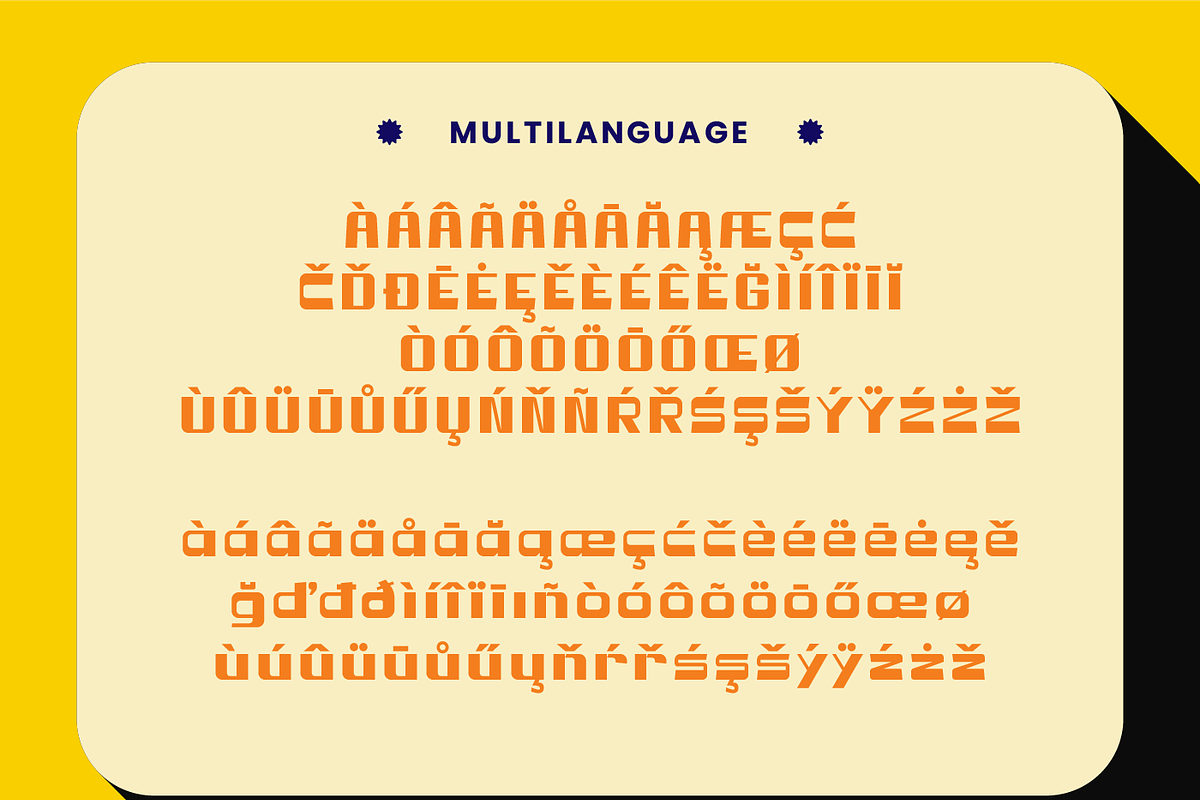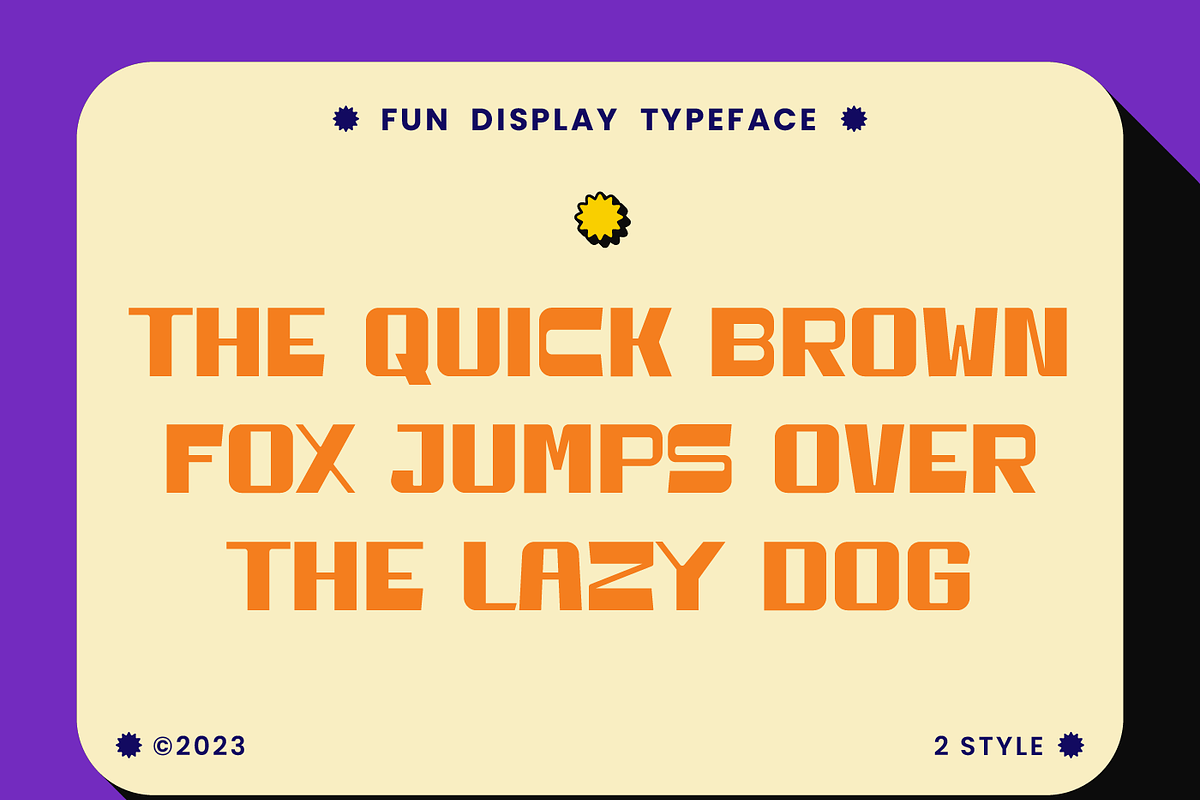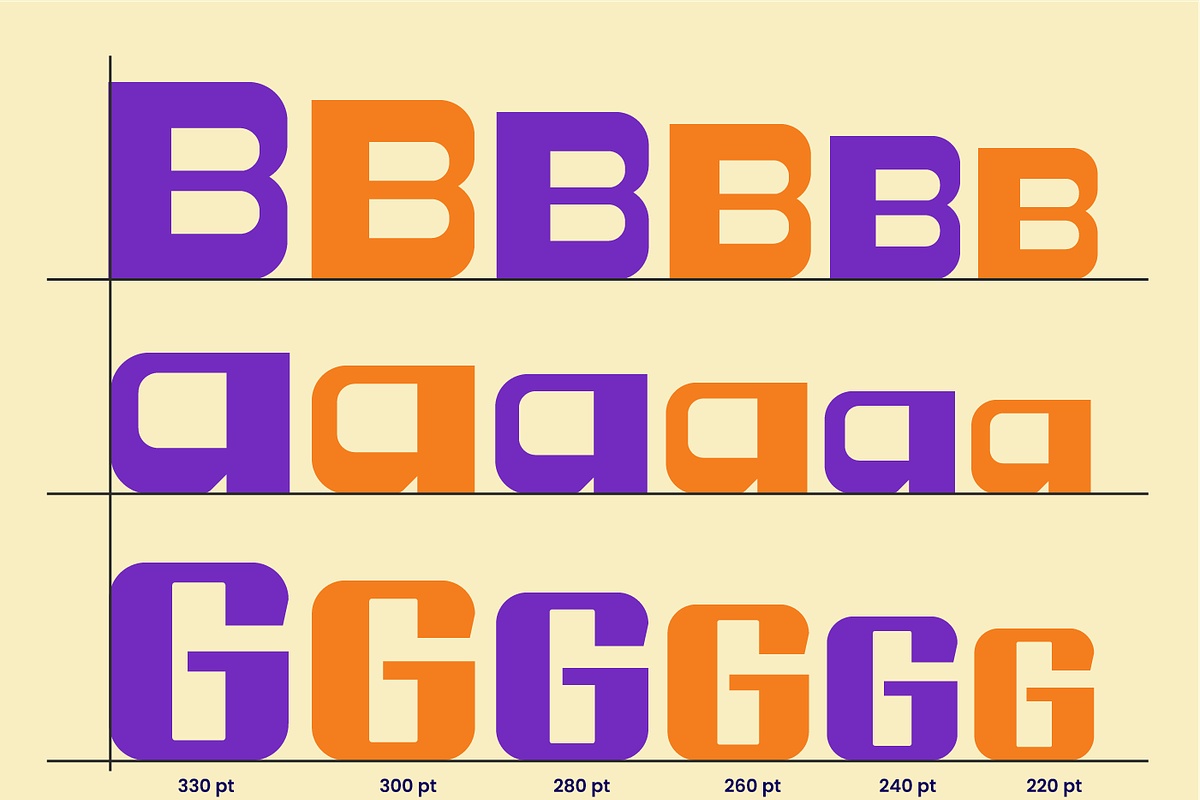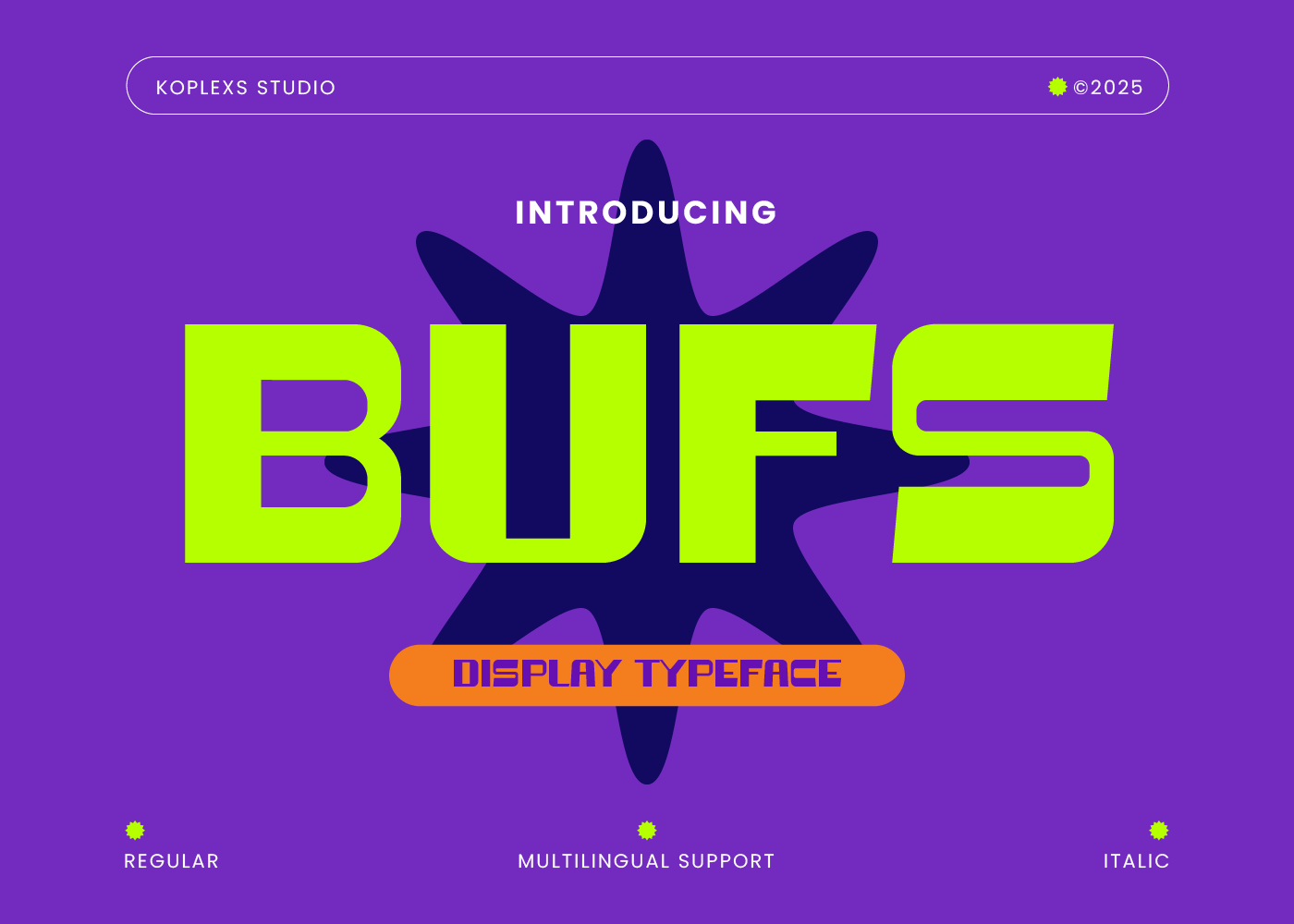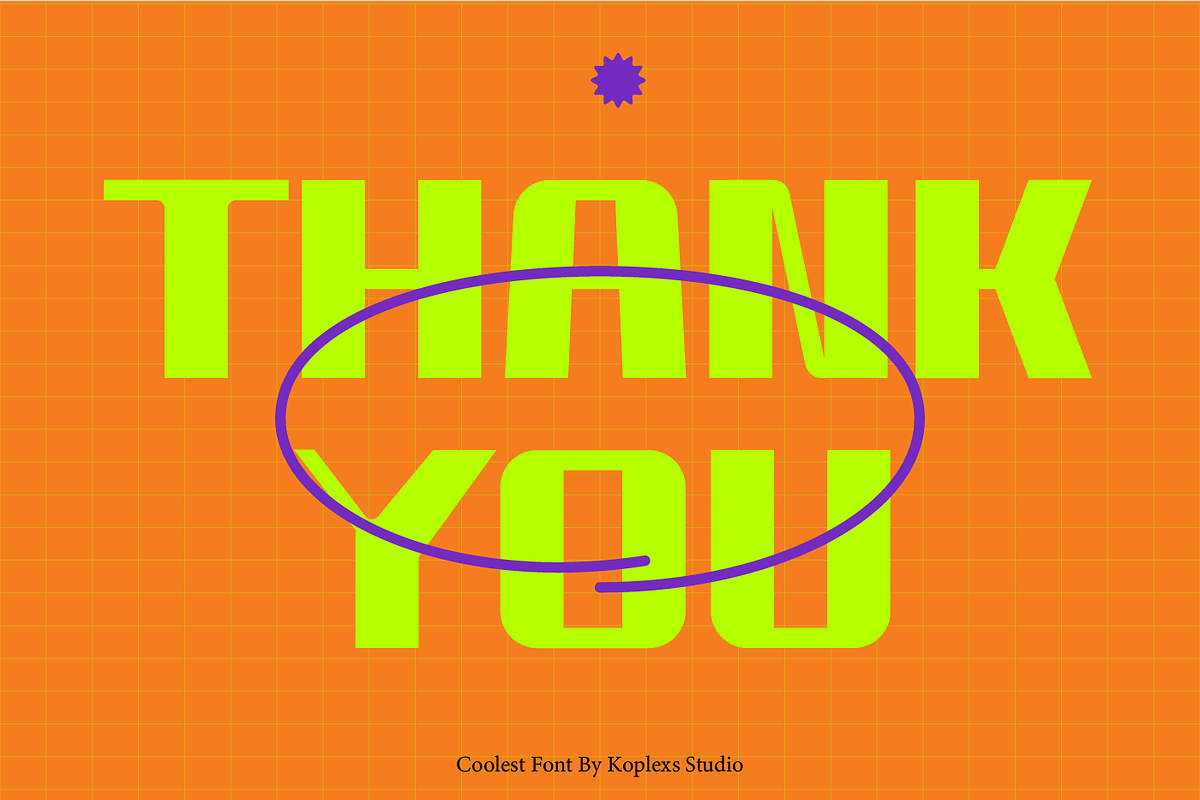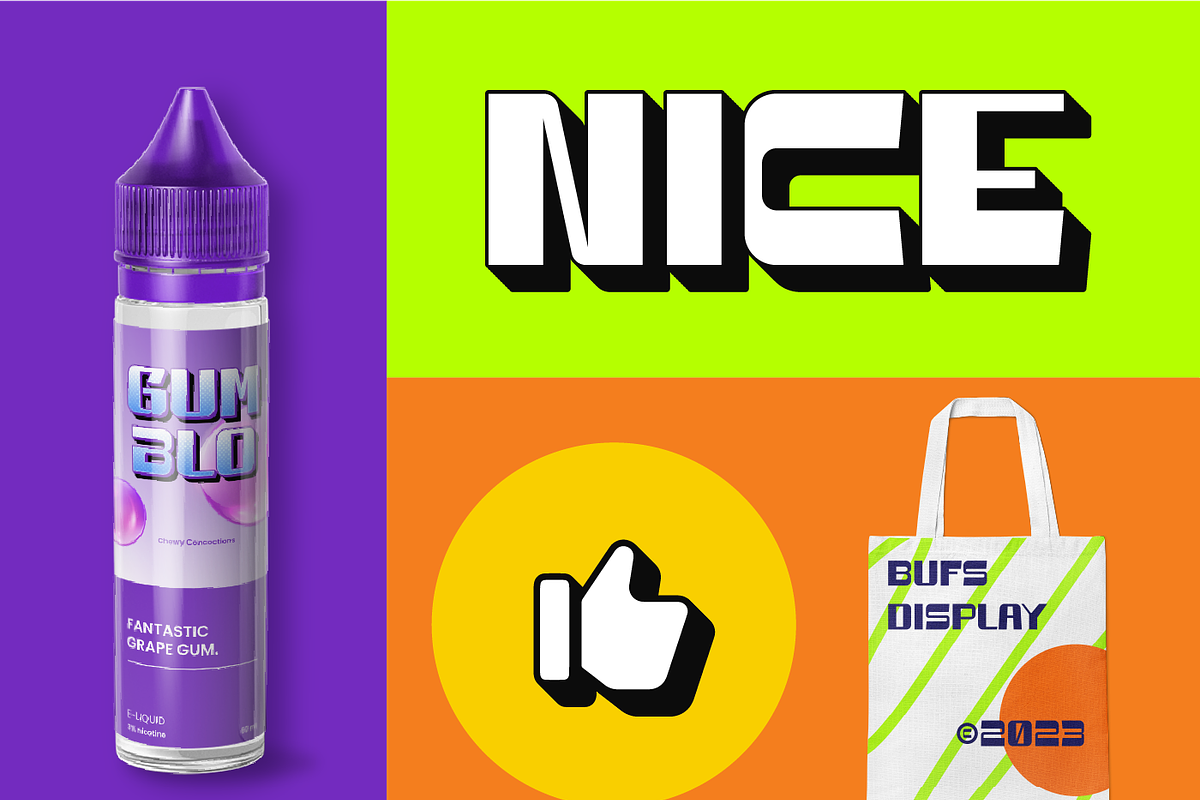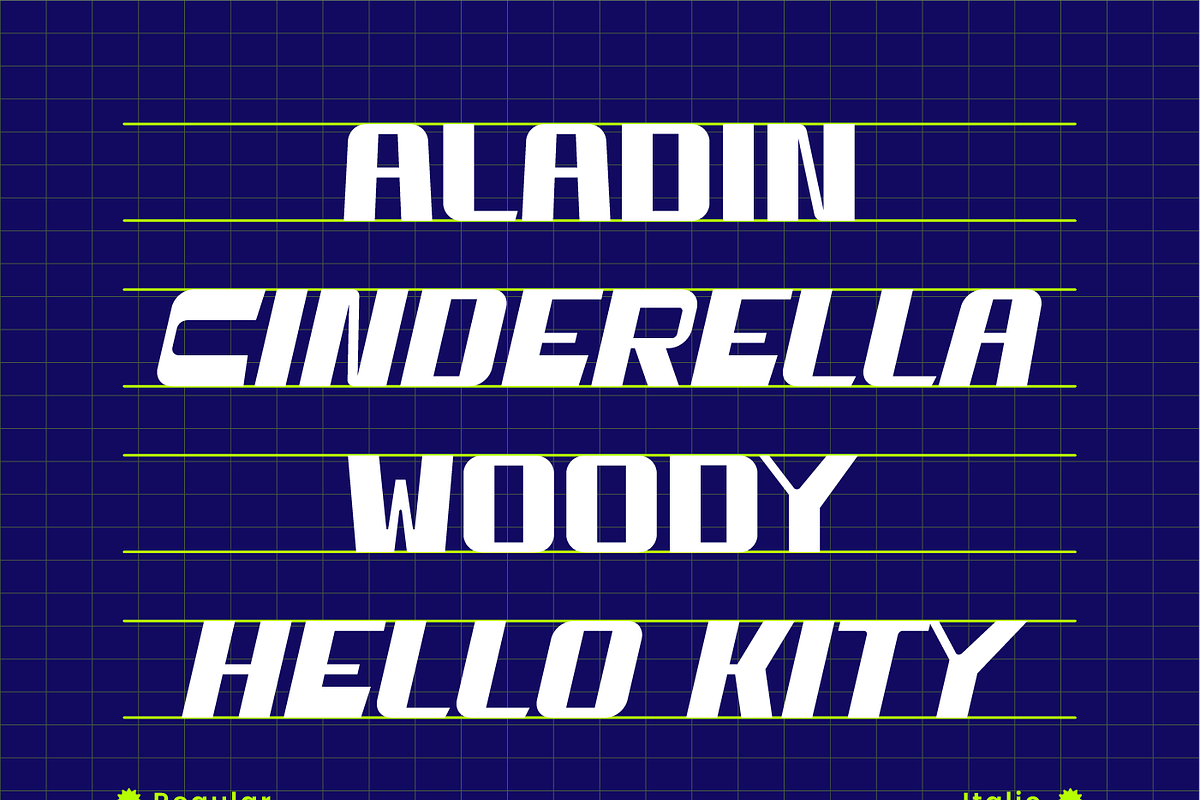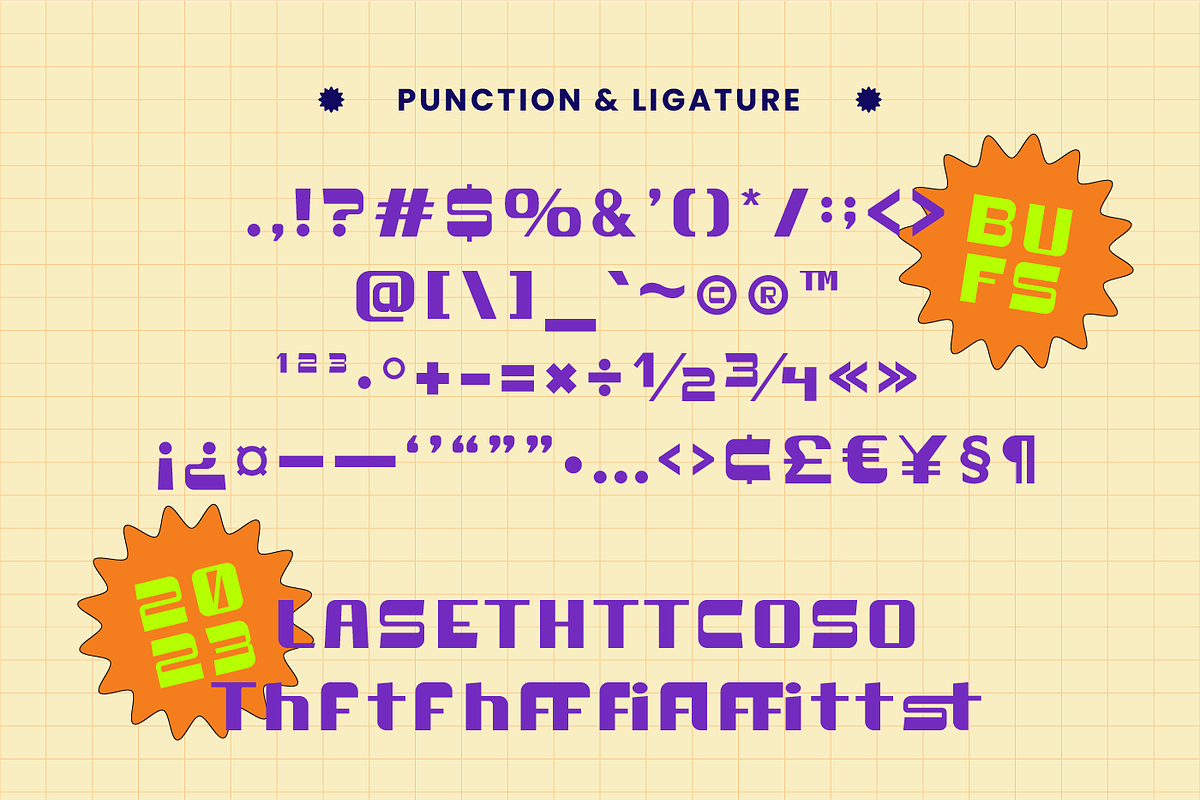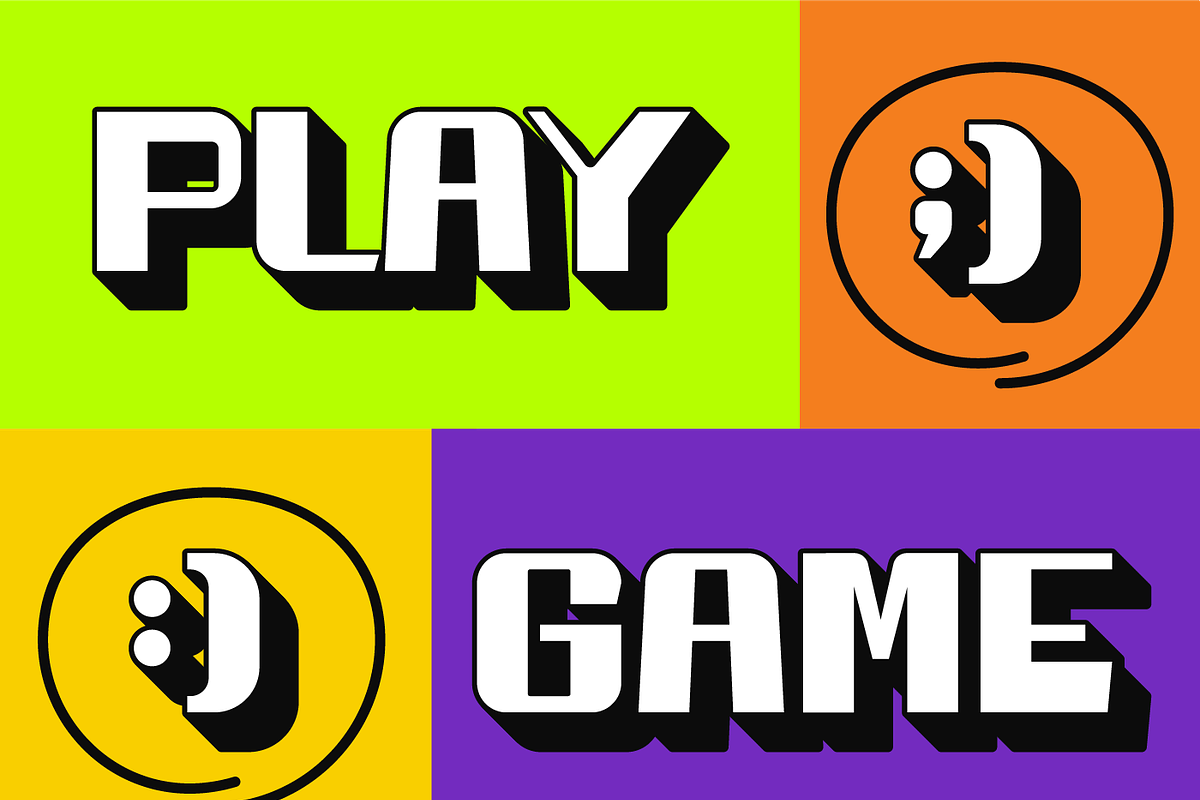
Bufs Display Font
Bufs – A Striking Display Typeface with Modern Attitude
Bufs is a sharp and expressive display typeface designed to bring high energy and unique character to your work. With its clean cuts, geometric form, and impactful presence, Bufs stands out effortlessly in any visual environment.
This typeface includes both Regular and Italic styles, making it versatile for everything from strong headlines to edgy branding.
- 2 Font Styles – Bufs Regular & Bufs Italic
- Over 260 Glyphs – Punctuation, numerals, special characters
- Multilingual Support – Covers Western European languages
- Stylish Ligatures & Symbols
- Designed for high-impact visuals & display use
🧩 Bufs Font Great For:
- Tech & startup branding
- Gaming titles and esports visuals
- Music posters & digital cover art
- Urban fashion & merchandise
- Editorial layouts & modern advertising
- Creative logos & packaging
Bufs Font was crafted to break conventions and inject personality into modern design. Its striking look and confident structure make it ideal for projects that demand attention, whether digital or print.